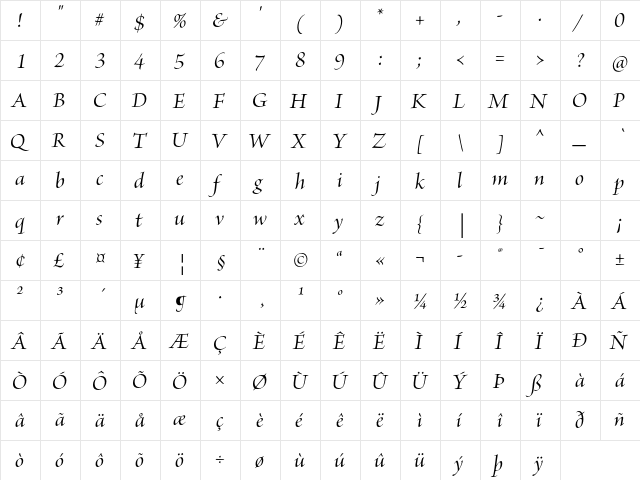
Brioso Pro Medium Italic Display Font Preview
Brioso Pro Medium Italic Display
Brioso Pro Medium Italic Display Font Details
| Style | Medium Italic Display |
| Designer | Robert Slimbach |
Design Context for Brioso Pro Typeface
Brioso Pro brings ornamental detail and strong personality to headlines and identities, where visual impact matters more than quiet functionality. The dynamic lean of this cut emphasises speed and emphasis in any layout.